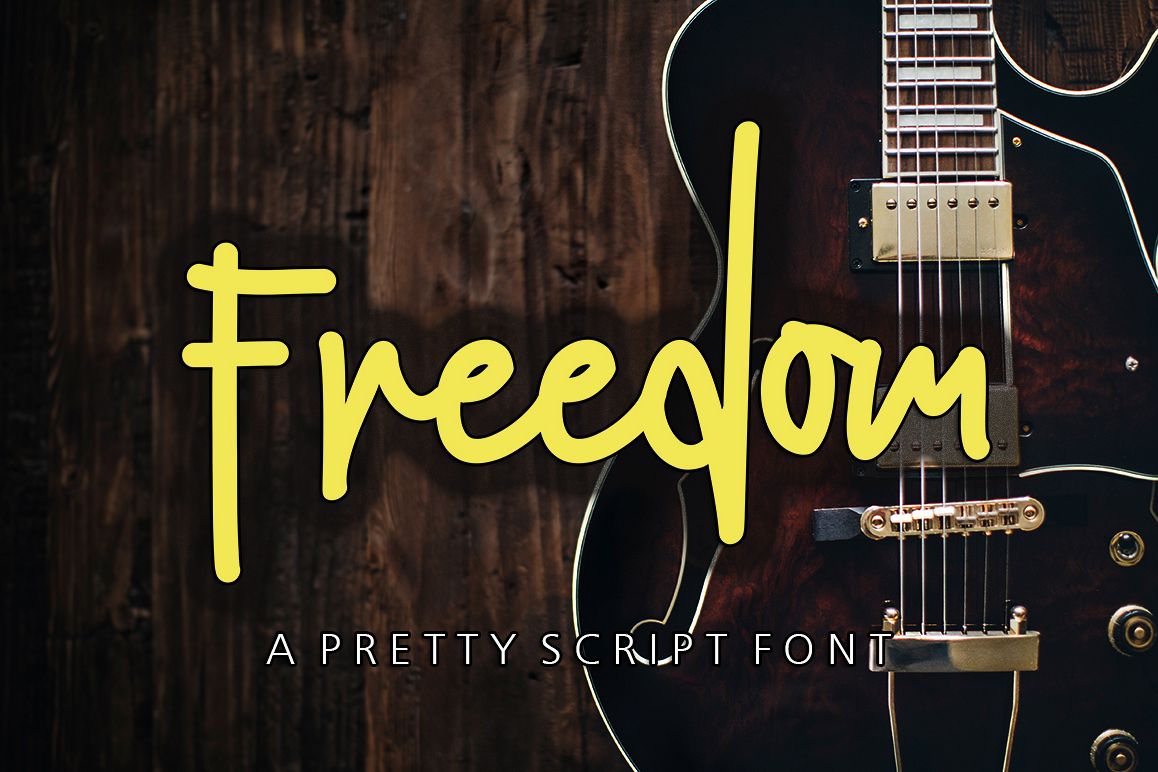
Freedom
Freedom Script is a modern font, organic, dynamic and energetic sytle.Can used for various purposes. such as the title, signature, logo, correspondence, wedding invitations, letterhead, signage, labels, newsletters, posters, badges, etc